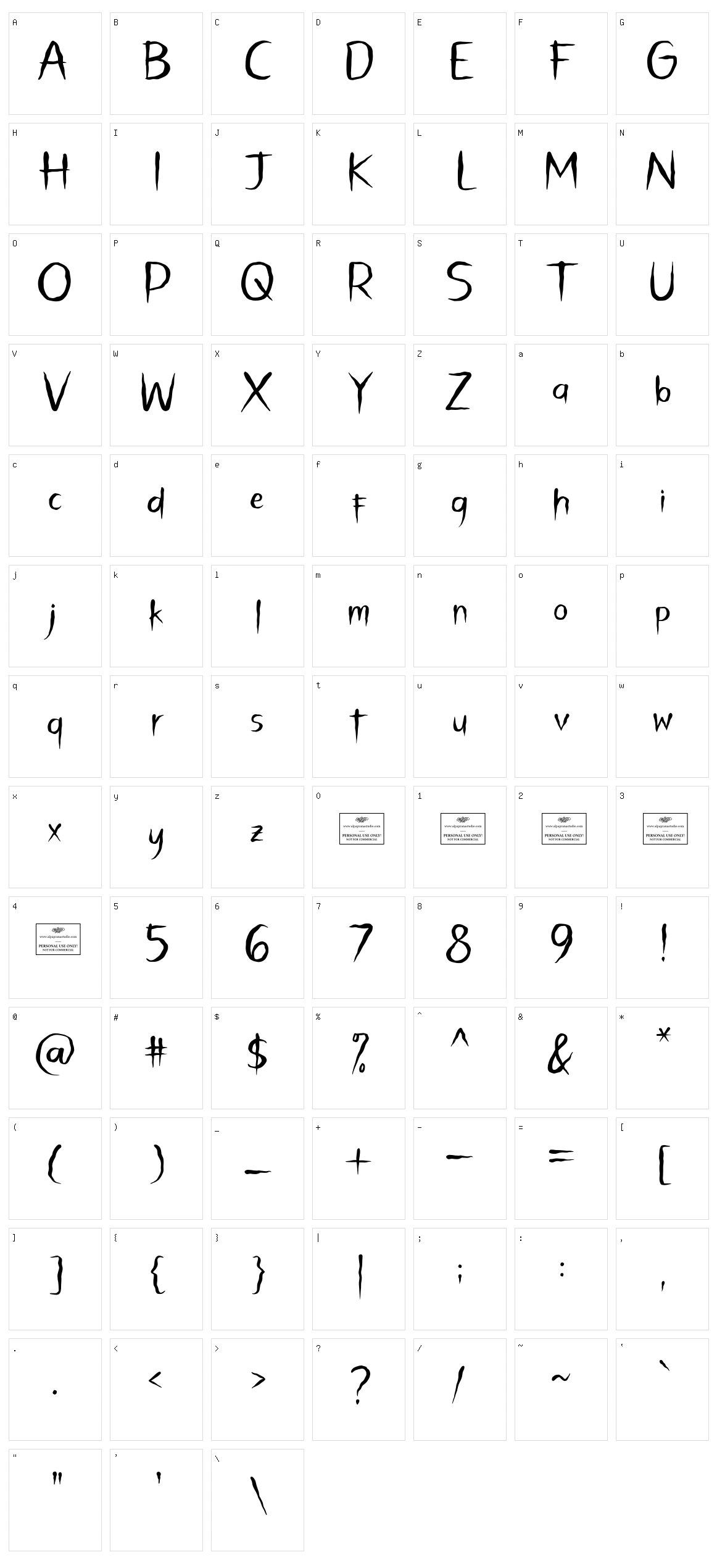
The free font Chilling Trickster is carefully designed by Alpaprana Studio, showcasing a thoughtful balance of creativity and usability and falls under the Horror font style. When you download the ZIP file, it contains only 1999 KB of font files, making it lightweight and quick to download. Please review the license details below to understand permitted usage and distribution rights. If license information is not available, we recommend using this font for personal projects only or contacting the author directly for commercial usage permissions.